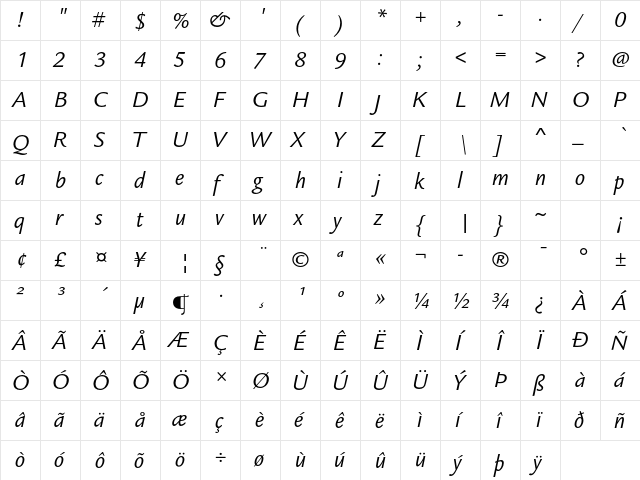
Legacy Sans ITC Std Book Italic
| Designer | Ronald Arnholm |
Design Context for Legacy Sans ITC Std Typeface
Legacy Sans ITC Std is a composed and adaptable typeface that performs quietly and consistently across a wide range of design contexts. Its italic angle brings a sense of urgency and motion to the letterforms.
Pro Tip: Use Legacy Sans ITC Std for emphasis, pull quotes, and subheadings where its slanted energy can add rhythm to the layout.